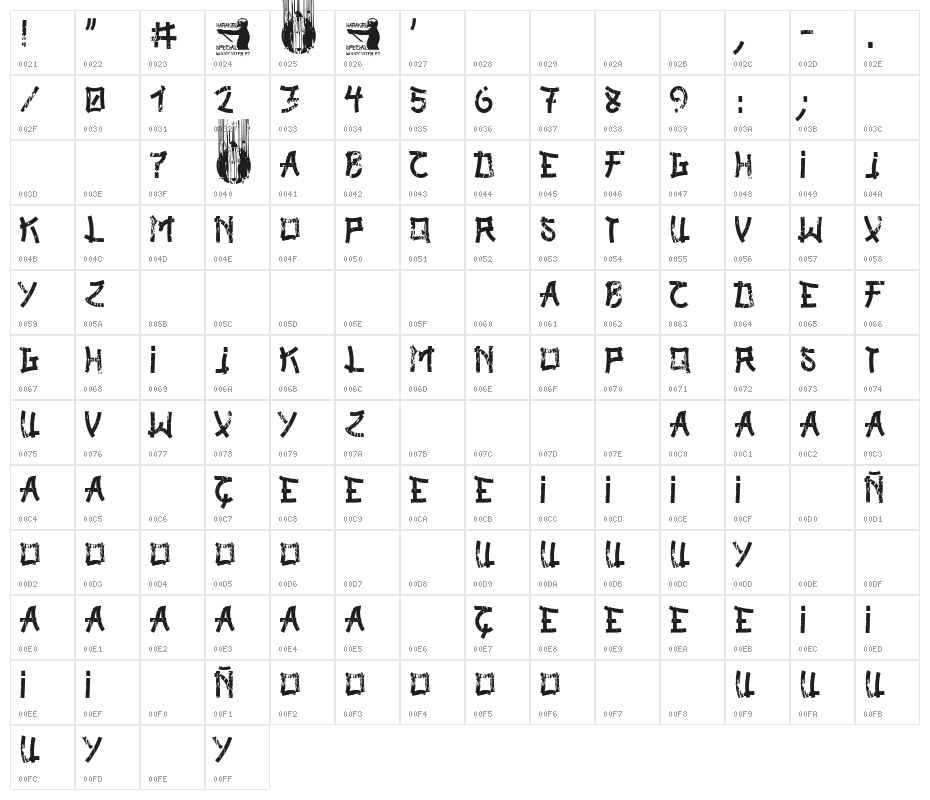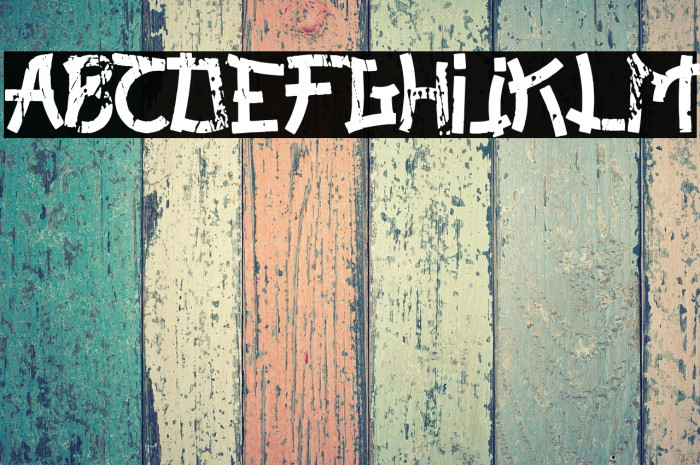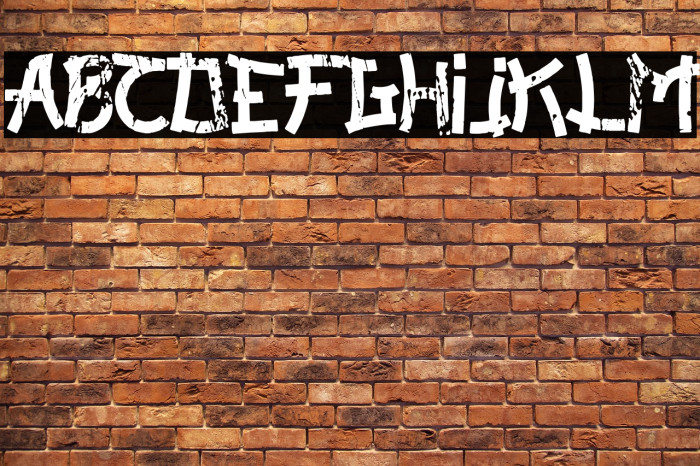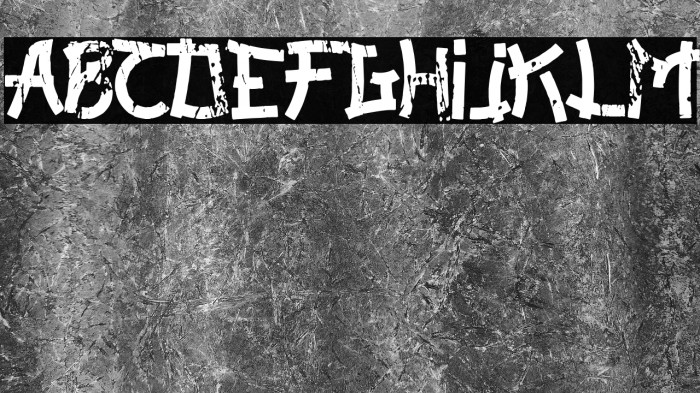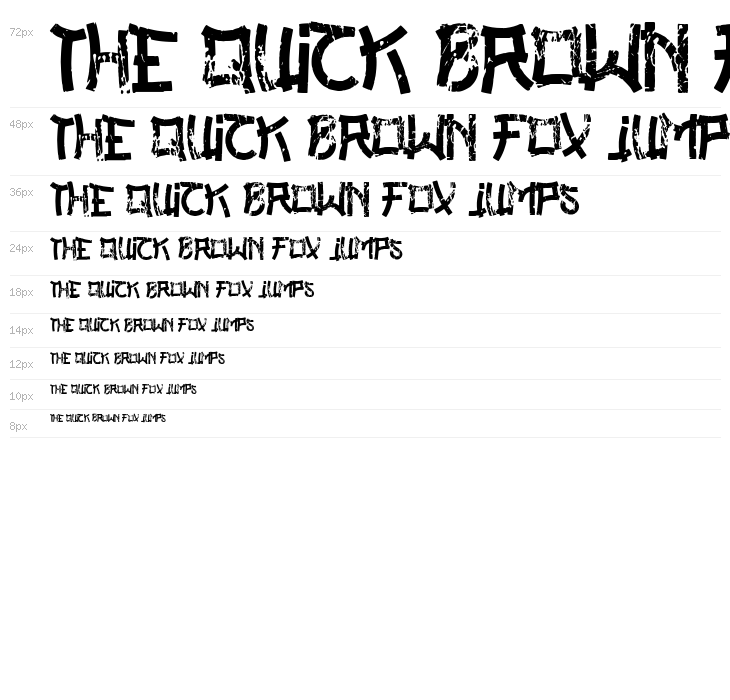
Harakiri Special Font
Harakiri Special Description
This font exhibits a bold and distressed style, characterized by its rough, grungy texture and irregular edges. The letters are designed with a unique, hand-drawn appearance, giving it a rebellious and edgy vibe. The uppercase and lowercase letters maintain a consistent style, with each character appearing as if it has been scratched or eroded. The numbers and special characters follow the same aesthetic, ensuring a cohesive look across all glyphs. This font's distinctive style makes it stand out, perfect for projects that require a bold statement.
| Overall Style | Grunge, Edgy, Distressed |
| Proposed Projects | Ideal for music album covers, posters, graffiti art, and edgy branding materials. |